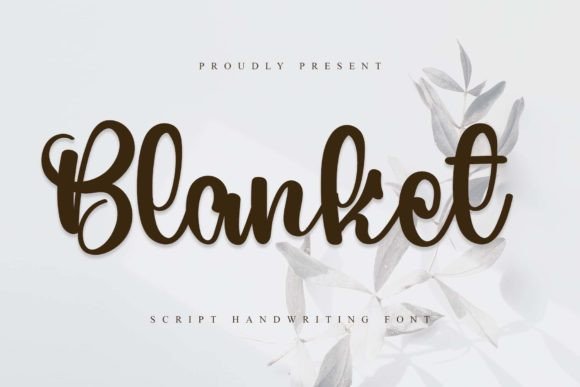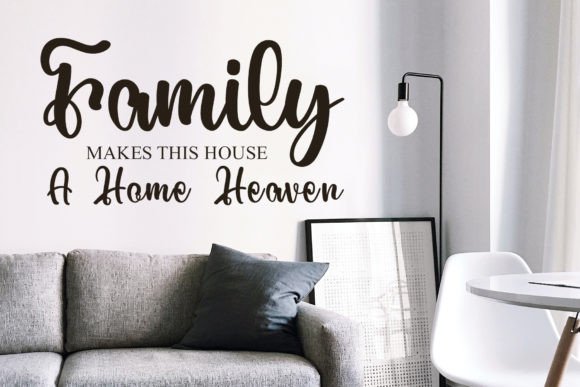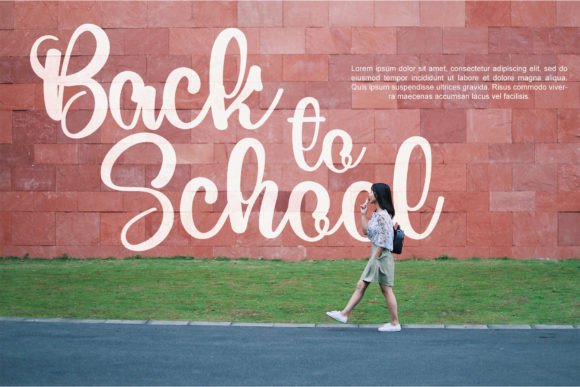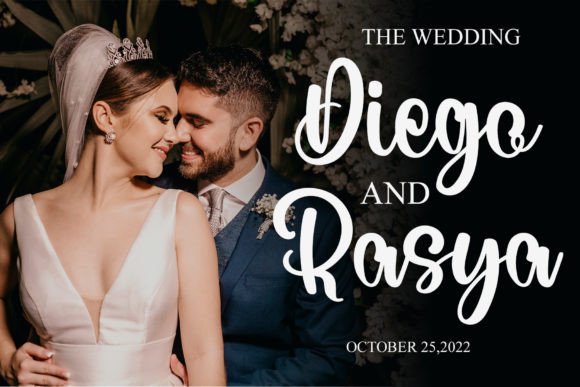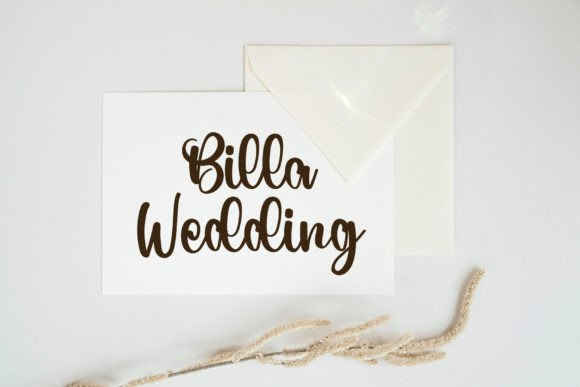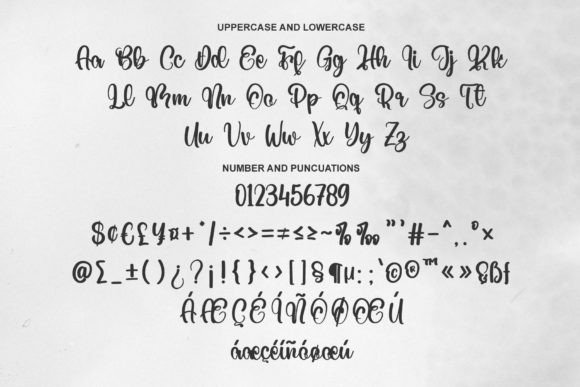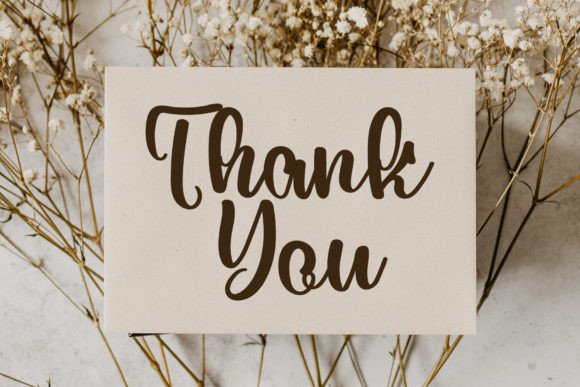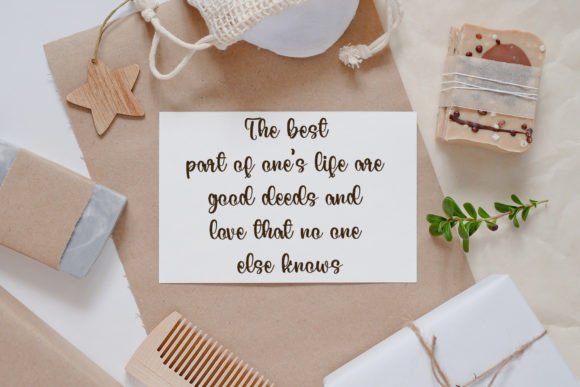
Blanket Font
About Blanket Font
Blanket is a beautiful and refined handwritten font. Classy and modern, it is perfect for logos, branding, invitations, stationery, wedding designs, social media posts, and much more!